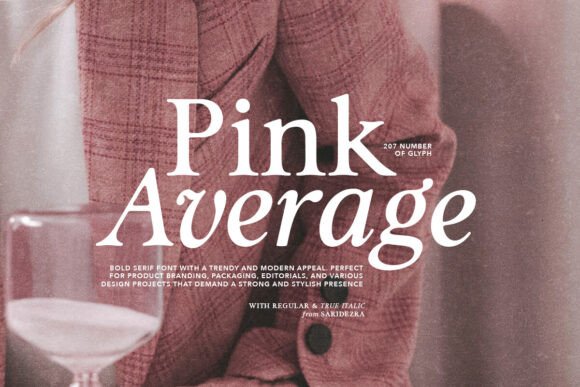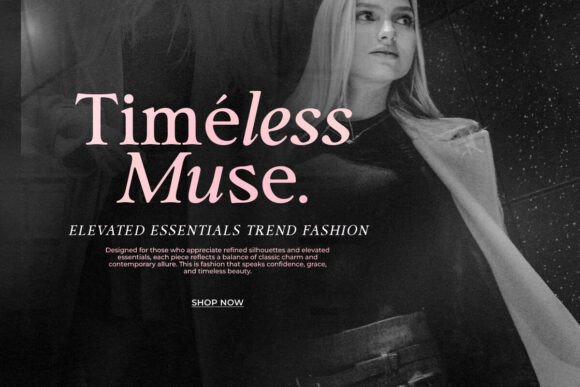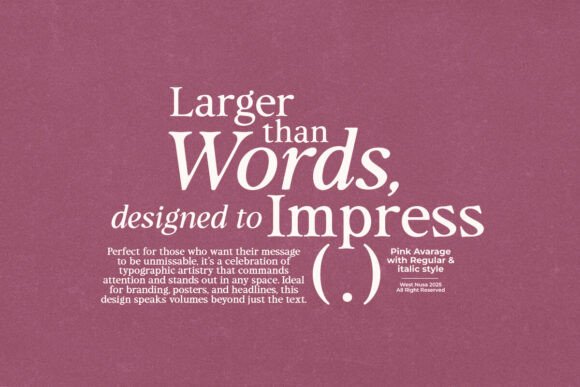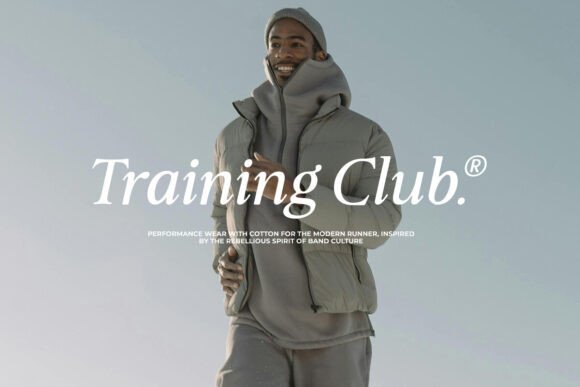
Pink Average Font
About the Pink Average Font
Add a touch of class to your work with the Pink Average Font, a truly exceptional typeface. Pink Average is a trendy bold serif with true italic that have modern, chic , and aesthetic vibes that you can use for any purposes such as wedding invitations, quotes, logo, and branding. With beautifully crafted italic, you can combine both style for stunning and timeless looks for branding design.
Pink Average excels in headline treatments, short blocks of text, and logo design where its bold serif forms make a strong statement. It’s ideal for branding projects aiming for a modern, chic aesthetic, particularly in fashion, beauty, or luxury goods. However, its weight and strong character make it less suitable for body copy or user interfaces requiring high readability.
For optimal pairing, consider complementing Pink Average with a clean, neutral sans-serif like Lato or Open Sans for body text to provide contrast and improve legibility. Alternatively, a delicate script font can add a touch of elegance and sophistication, while a geometric sans-serif offers a modern, structured counterpoint.
The overall personality of Pink Average is confident and sophisticated, yet approachable. Its bold strokes project authority while the subtly refined italic retains a sense of style and grace, making it a versatile choice for projects requiring a balance of strength and elegance.
Pink Average Font Usage Examples
Pink Average Font Example